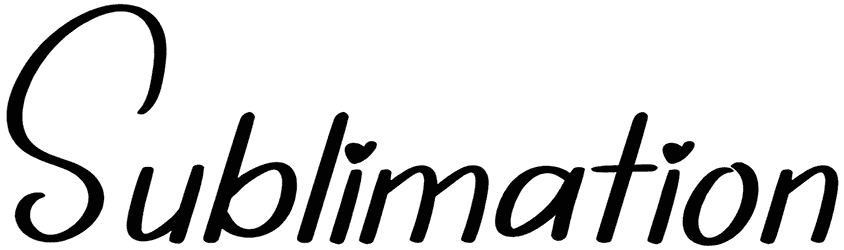
Sublimation Font
Choosing a font to design a friendly greeting card or letterhead of love texts is always difficult. But probably, seeing Sublimation sparks in your mind can ignite the fire of your love.
This birthday font is the easiest way to convey the feeling of intimacy and love to everyone you like. For this reason, it can bring you a different wedding card or shine well among the pile of greeting cards sent for Christmas.
Sublimation is a unique and skinny handwritten font. Simple but with a strong visual effect, this font will instantly make your creations more appealing and interesting!